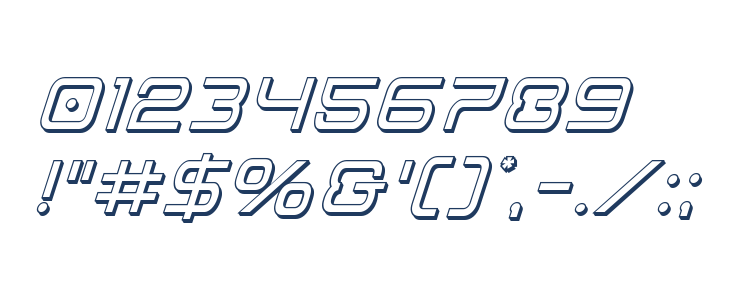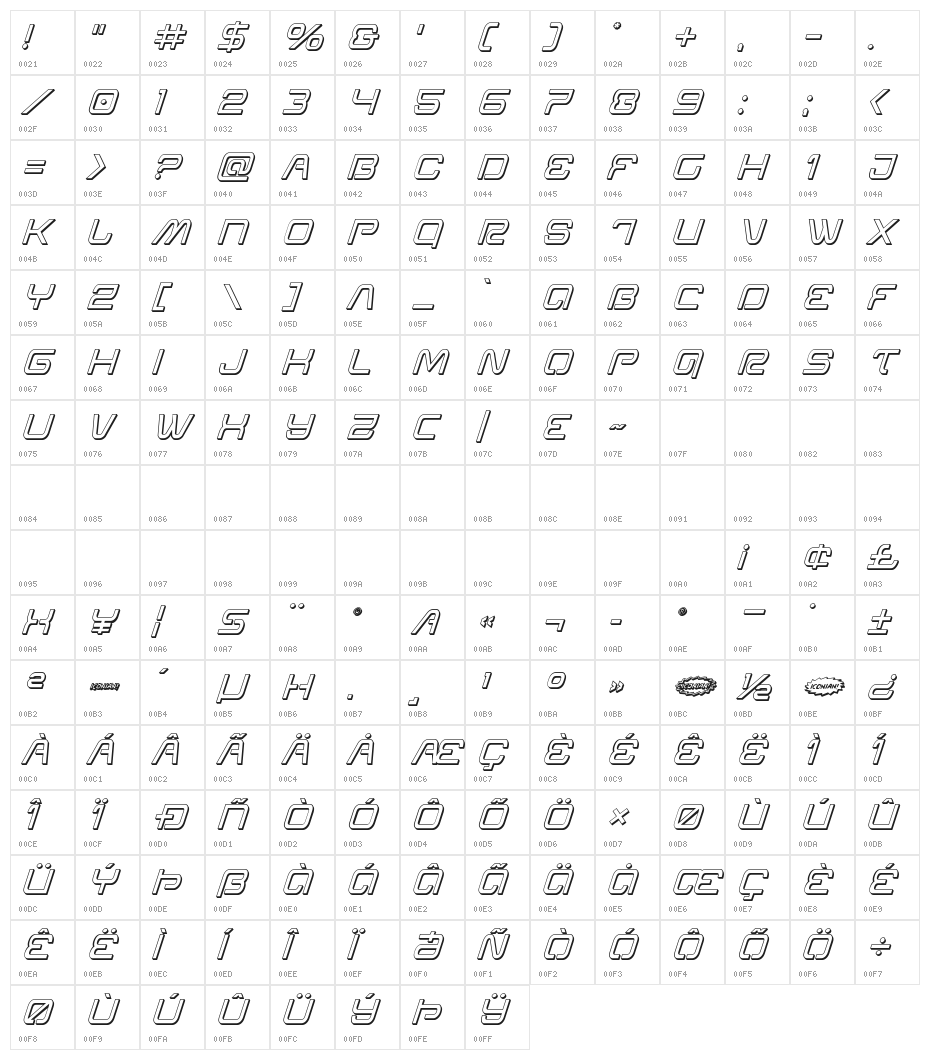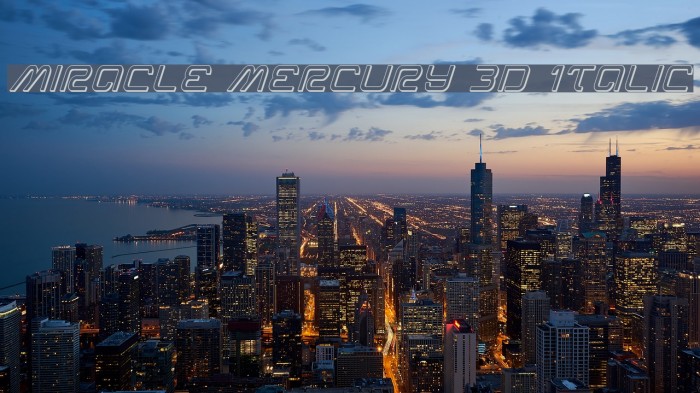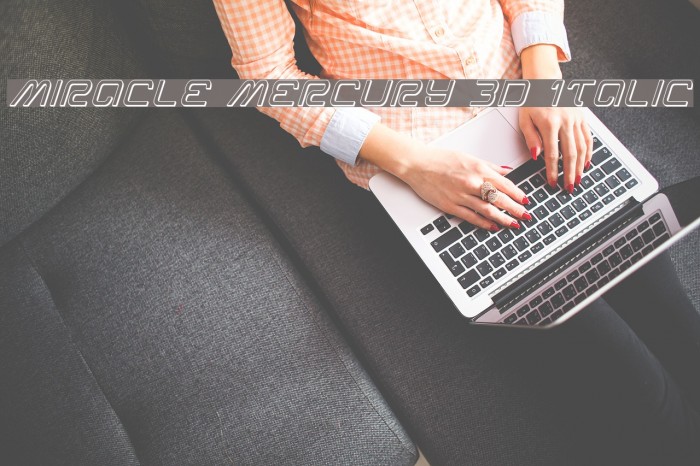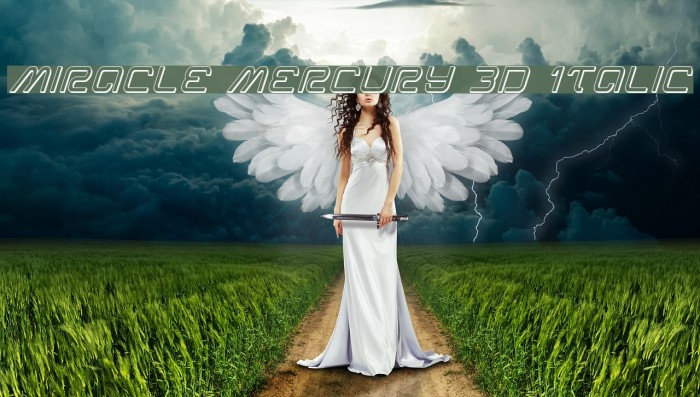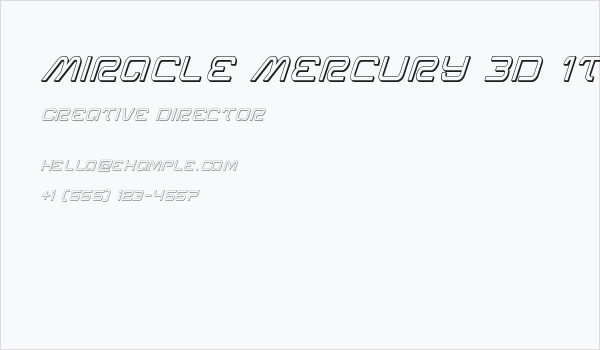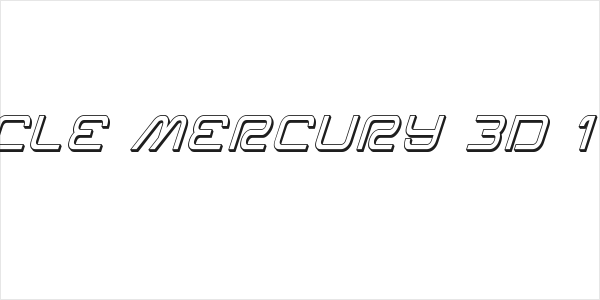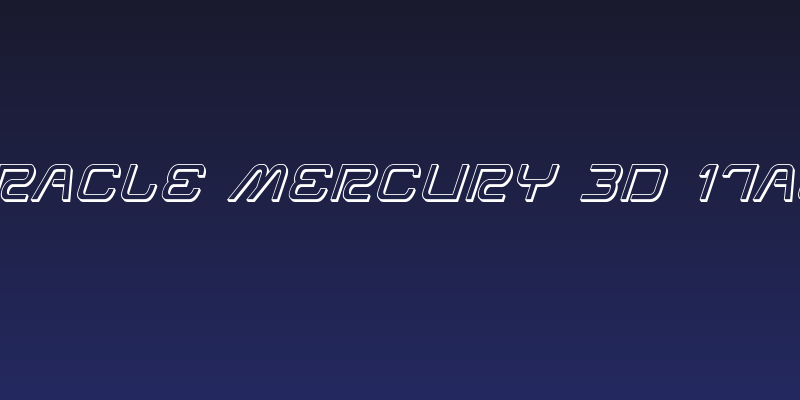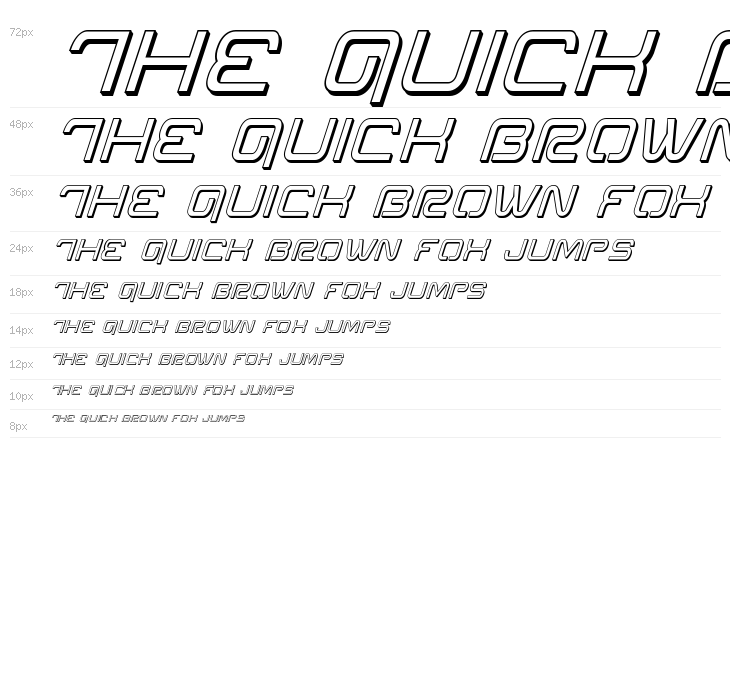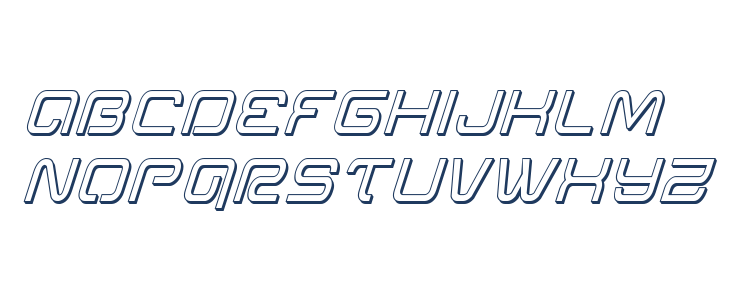
Miracle Mercury 3D Italic Font
Miracle Mercury 3D Italic Description
This font features a bold, futuristic design with a 3D effect that gives it a dynamic and modern appearance. The characters are outlined, creating a sense of depth and movement. The uppercase letters are consistent in height, with a slight slant that adds to the italicized look. The numerals and special characters maintain the same stylistic approach, ensuring uniformity across all elements. The font's geometric structure and clean lines make it suitable for projects that require a contemporary and eye-catching aesthetic.
| Proposed Projects | Ideal for sci-fi themed designs, video game titles, tech branding, and modern posters. |